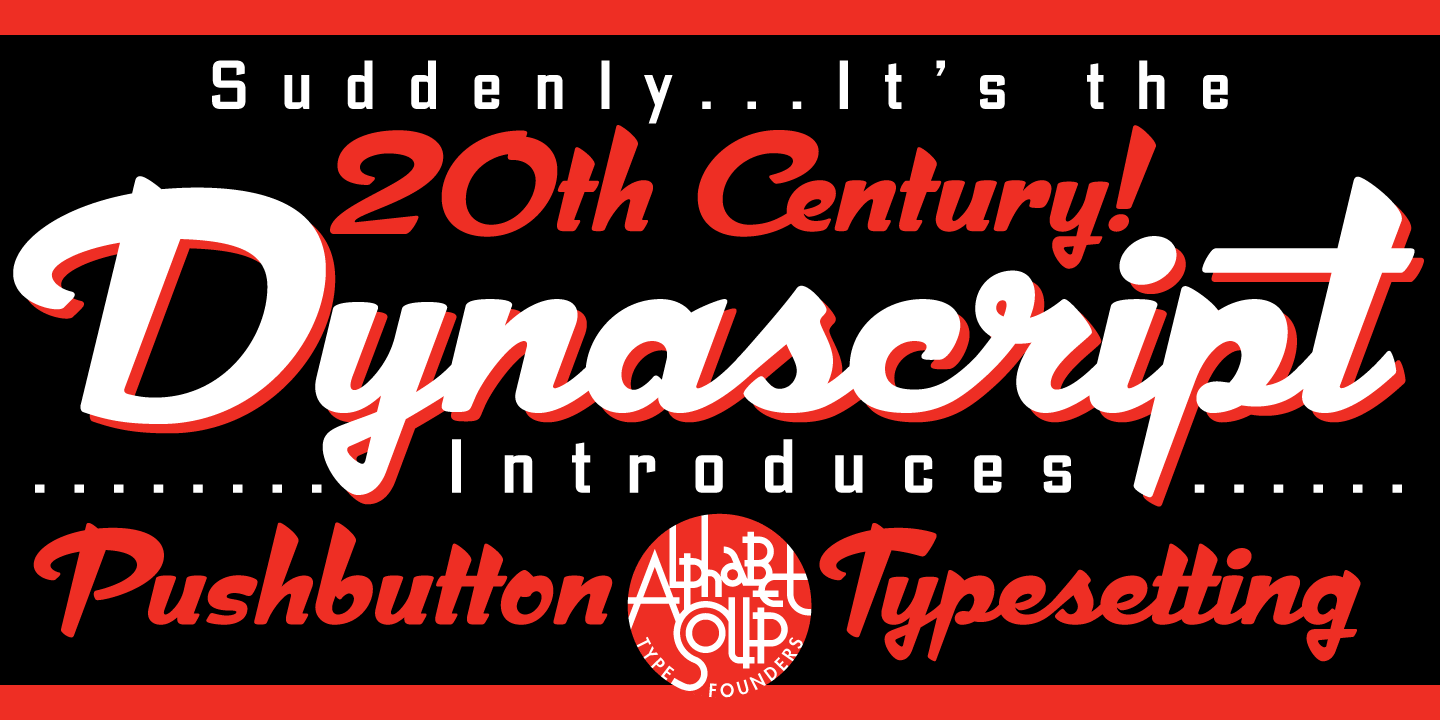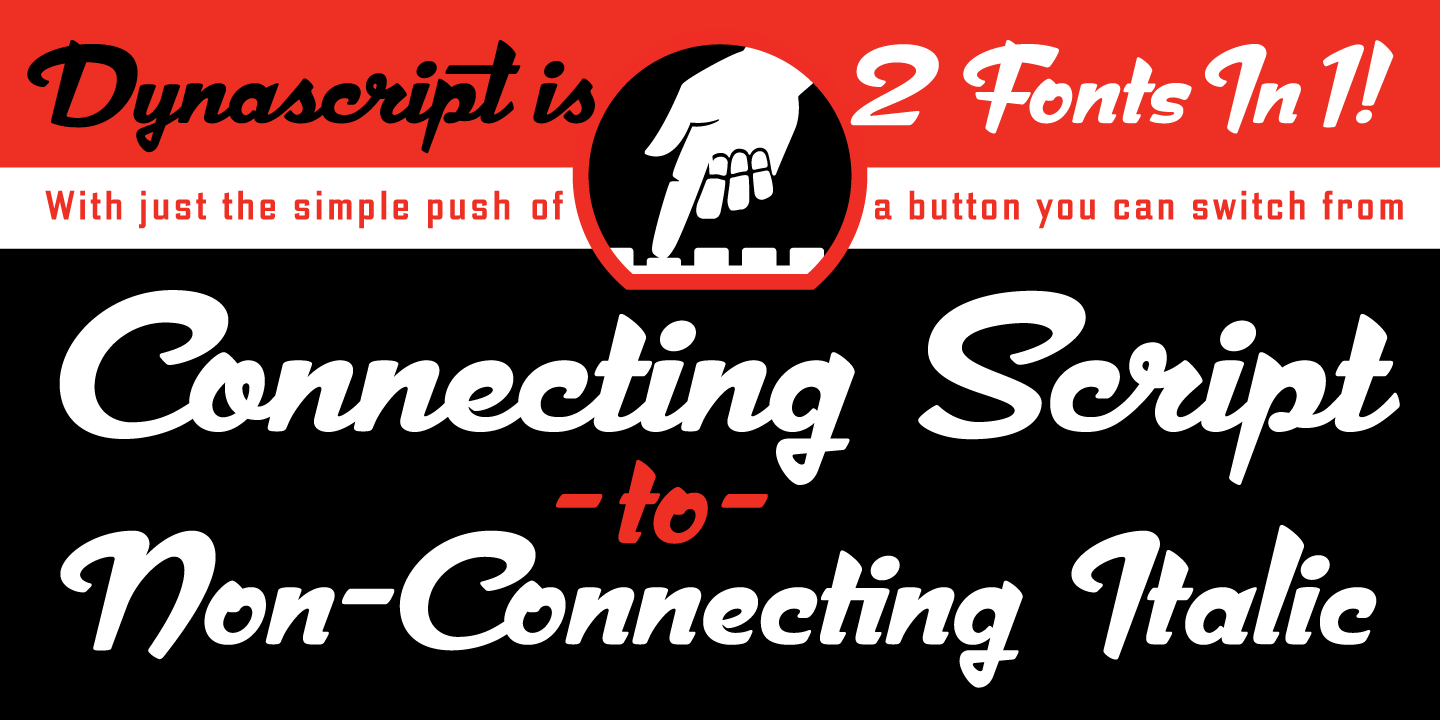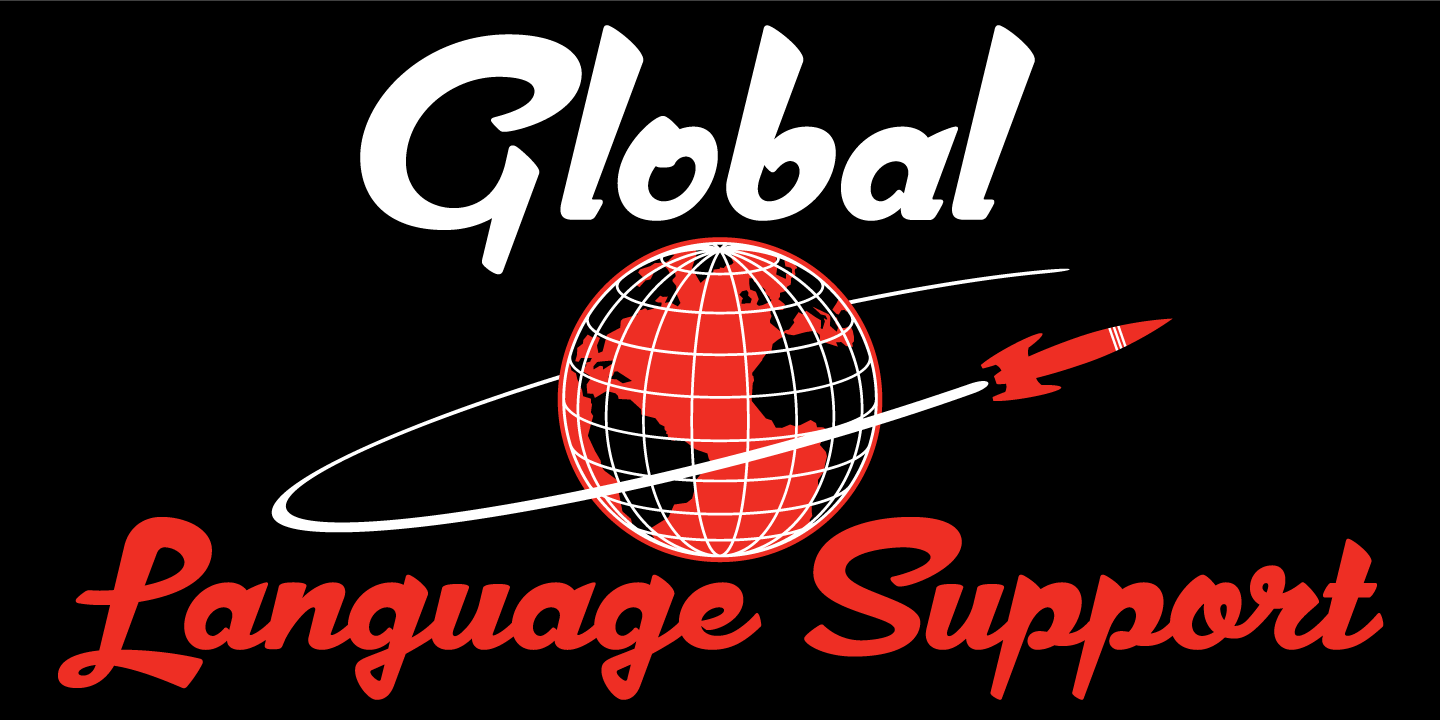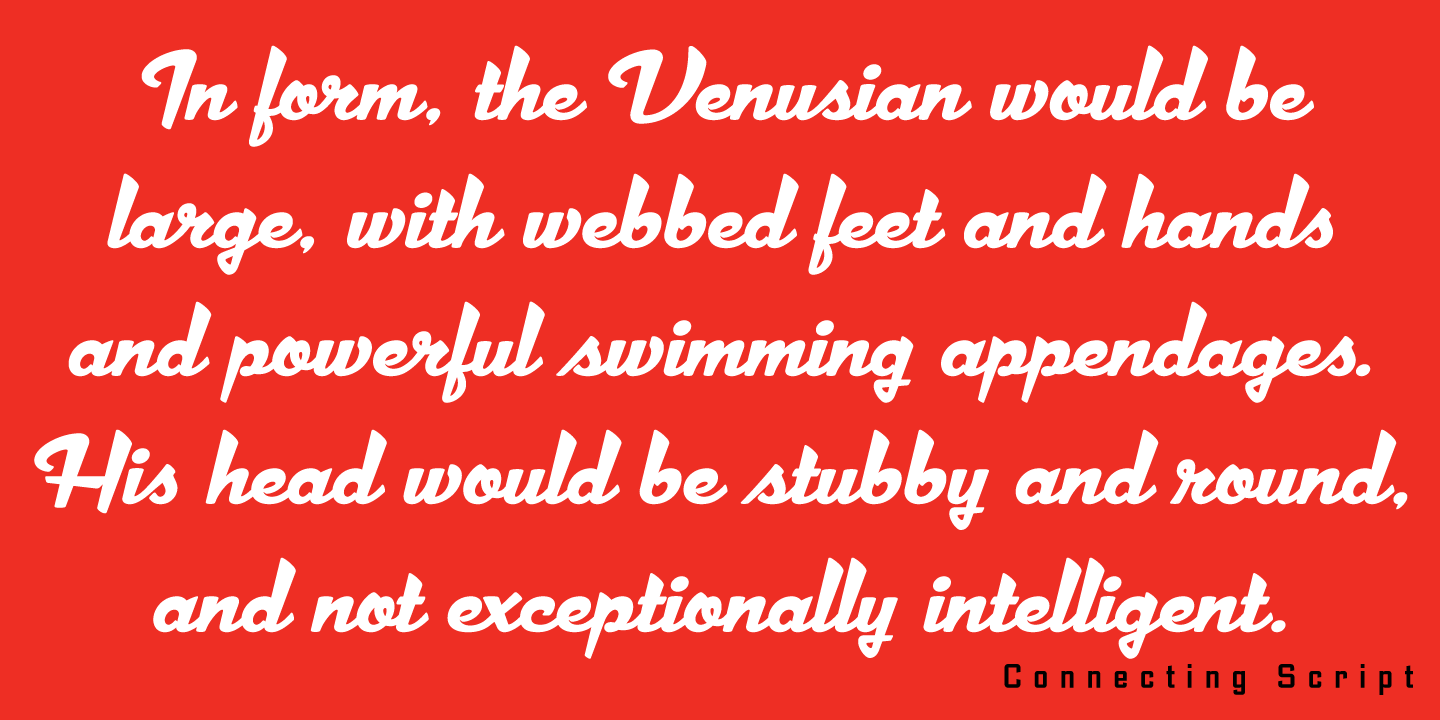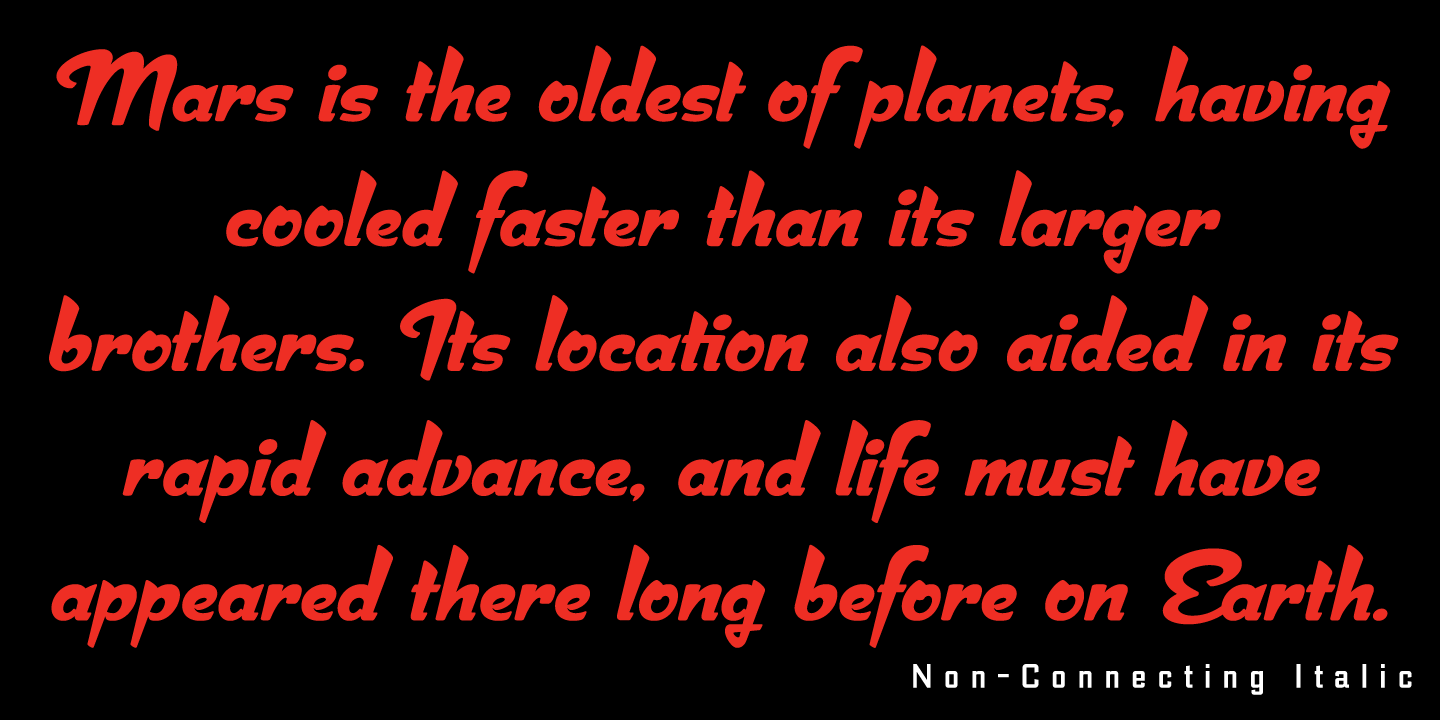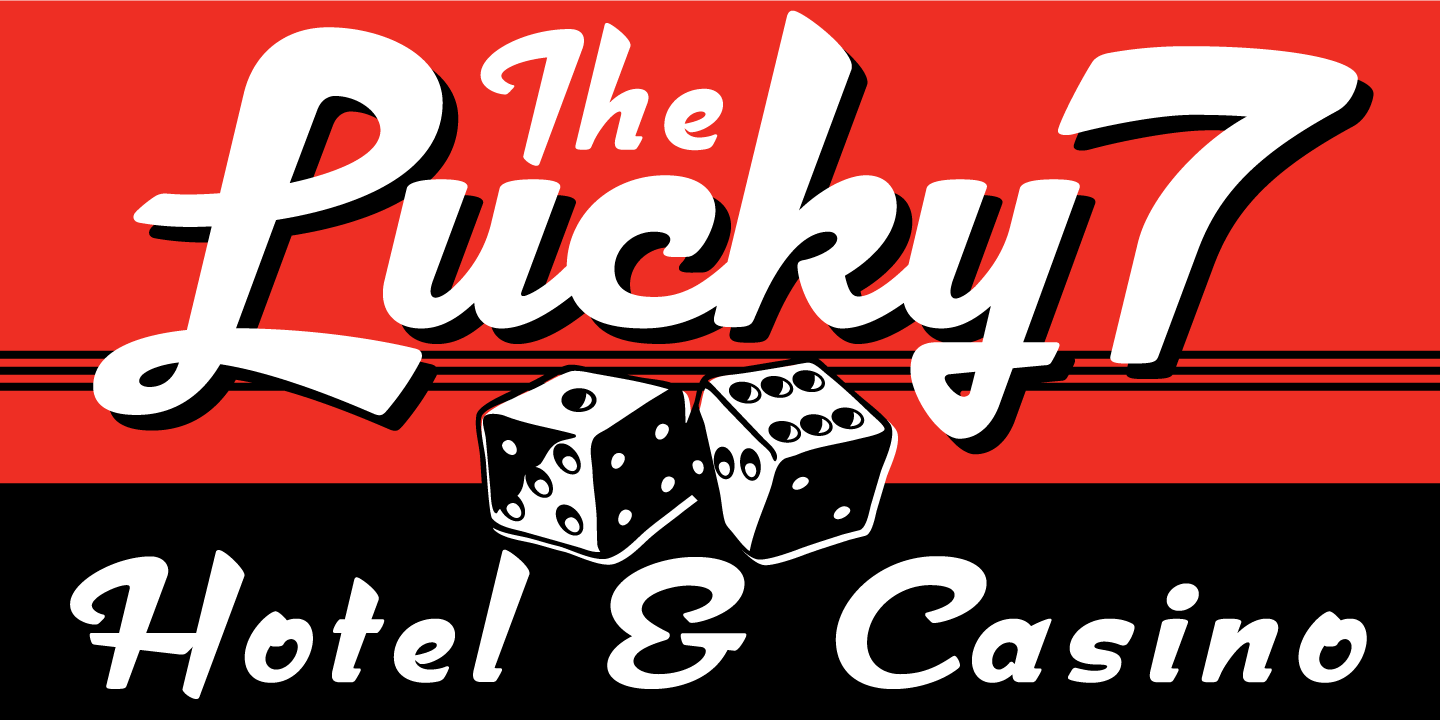
Dynascript
Font Family by Alphabet Soup
Dynascipt is a completely original, never before seen, bold script font and the slanted cousin of Dynatype, but it may be slightly reminiscent of various mid-century neon signage, and of sign writing, Speedball alphabets and even baseball scripts.
Special Feature: Typography enters the Space Age! Dynascript brings the ease of "Pushbutton Automatic" to your typesetting experience. Dynascript is actually two fonts in one! Without switching fonts you can instantly change from Dynascript's connecting font to the non-connecting italic with the simple push of a button.